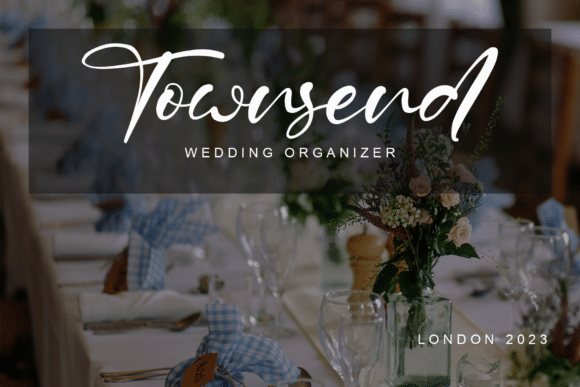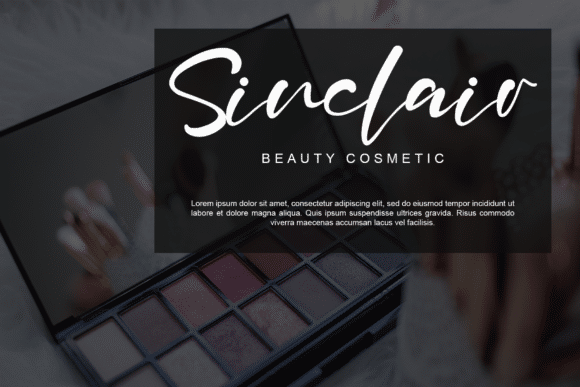
Melinda Johan is a modern and playful handwritten script font. It is perfect for any branding project such as logos, t-shirt printing, creative products, and more. It will look extraordinary in a variety of contexts. Created by Kong Font Studio